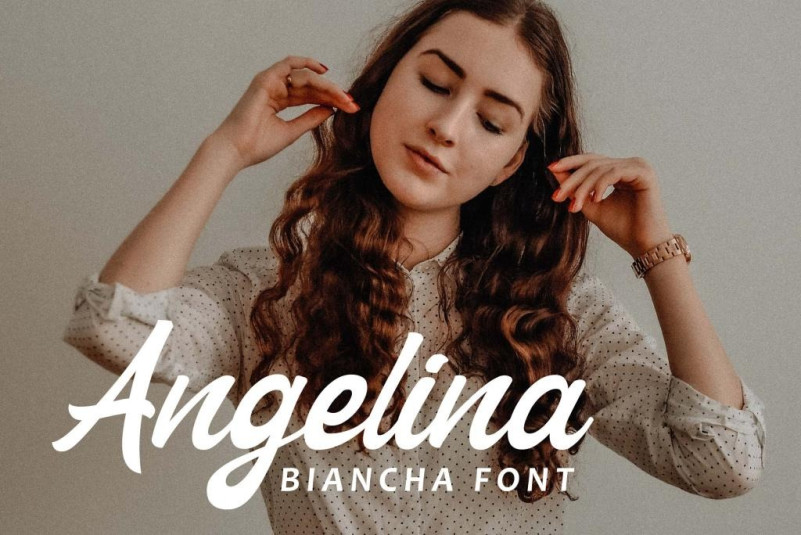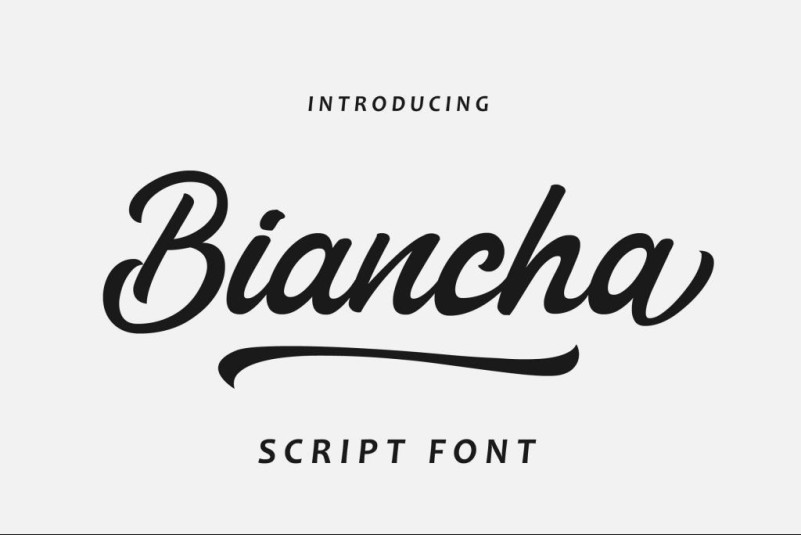
Biancha Font
Biancha Script Font, Its optimum legibility, clean, and geometric look is perfect branding, brochures, greeting cards, quotes, posters, stationary, design titles, blog headers, and much more.
Alternate Letters, Ligature & Swash/Tail